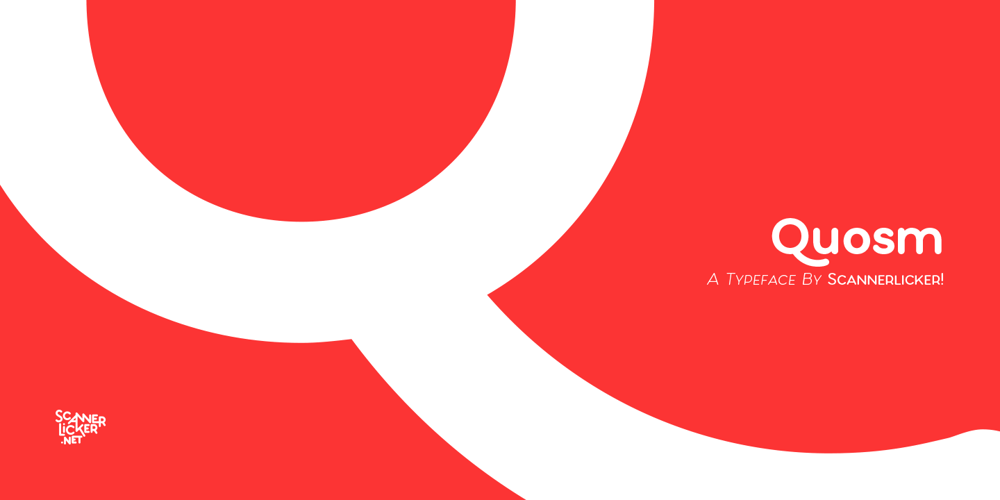
Quosm Font Family was designed by Fábio Duarte Martins and published by Scannerlicker. Quosm contains 8 styles and family package options. Quosm is a soft and friendly geometric sans, initially designed to introduce children to typeset letterforms. To achieve this goal, the letterforms were kept as simple and unambiguous as possible, while relying on a modular construction.